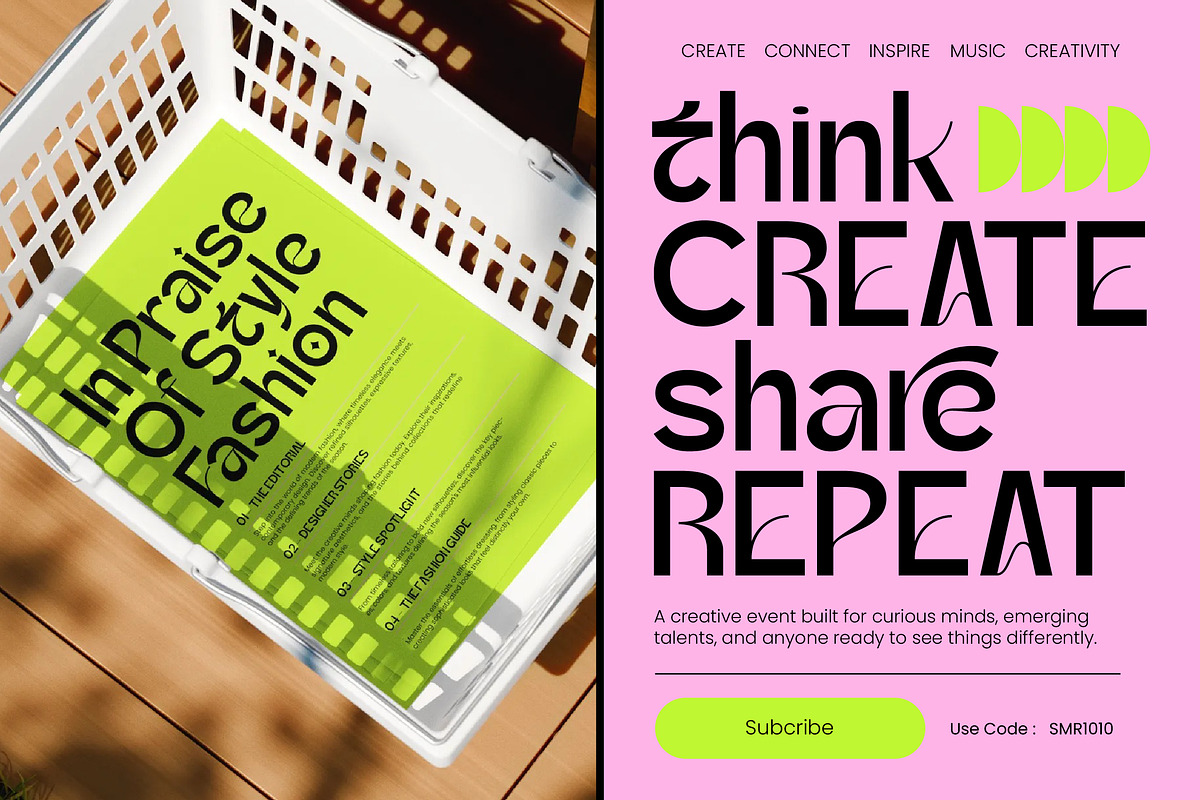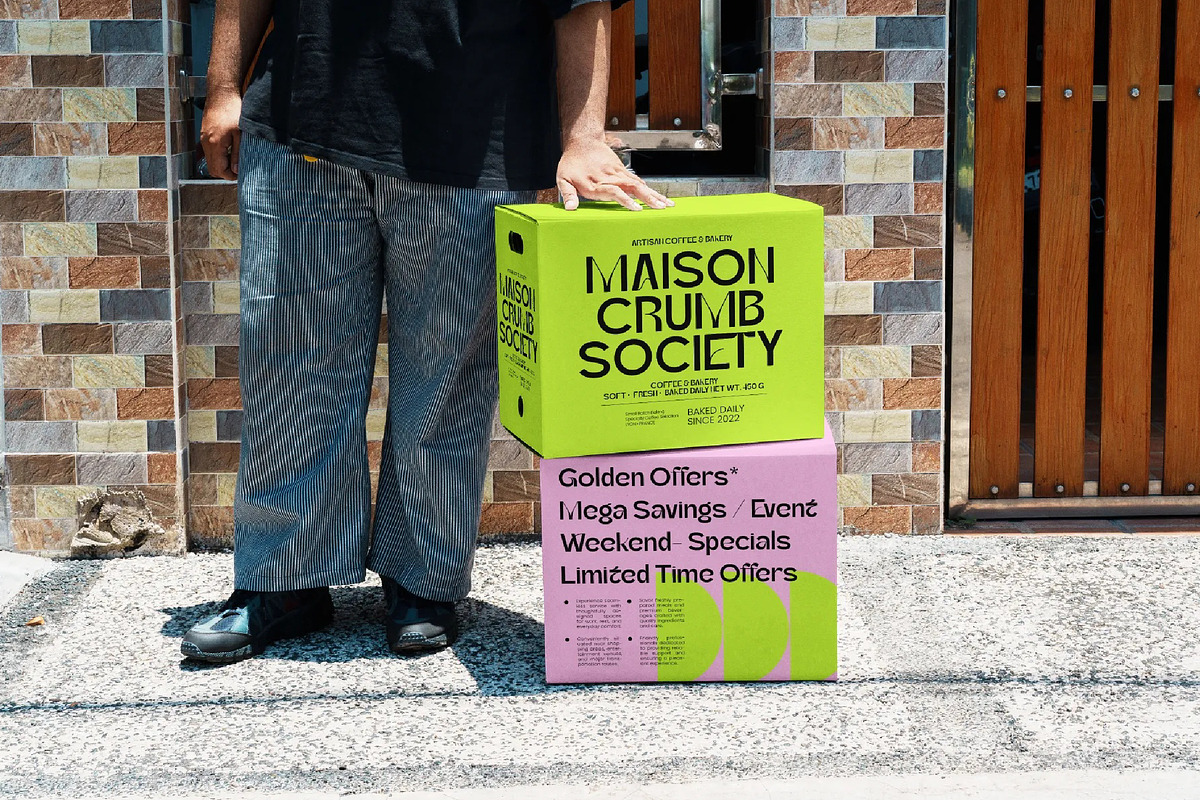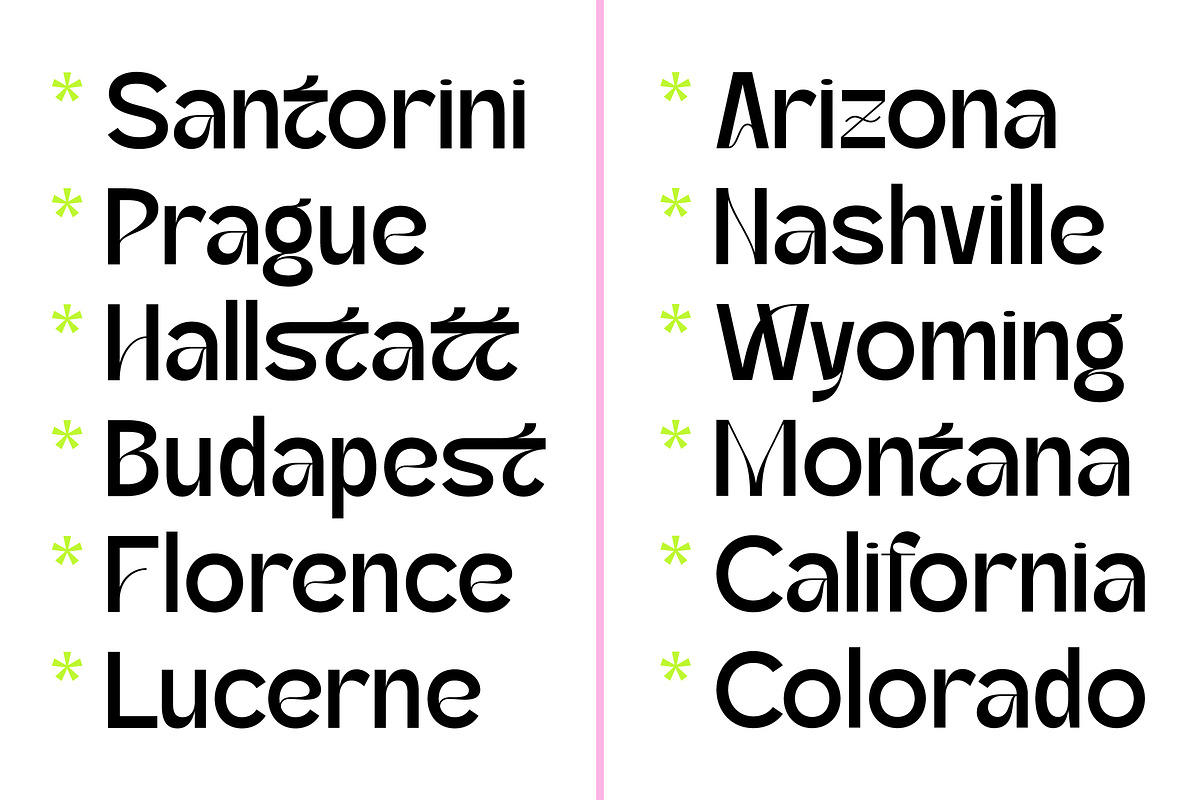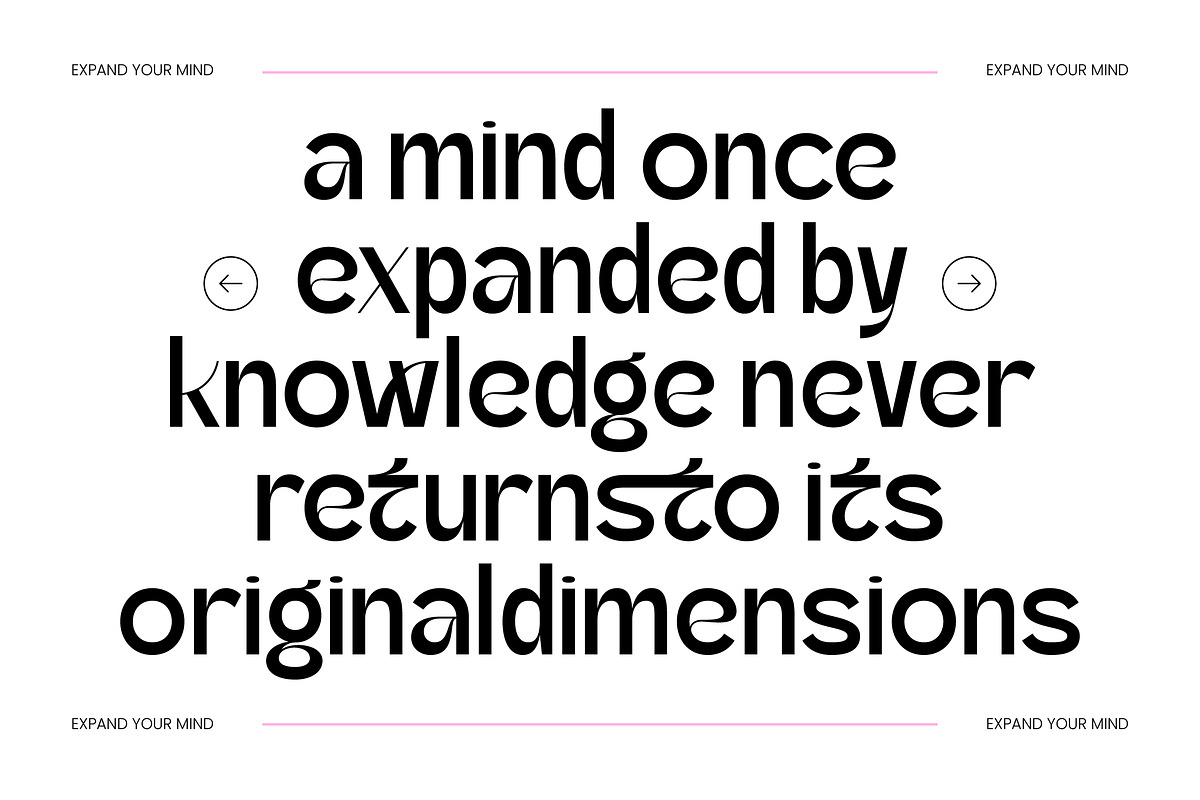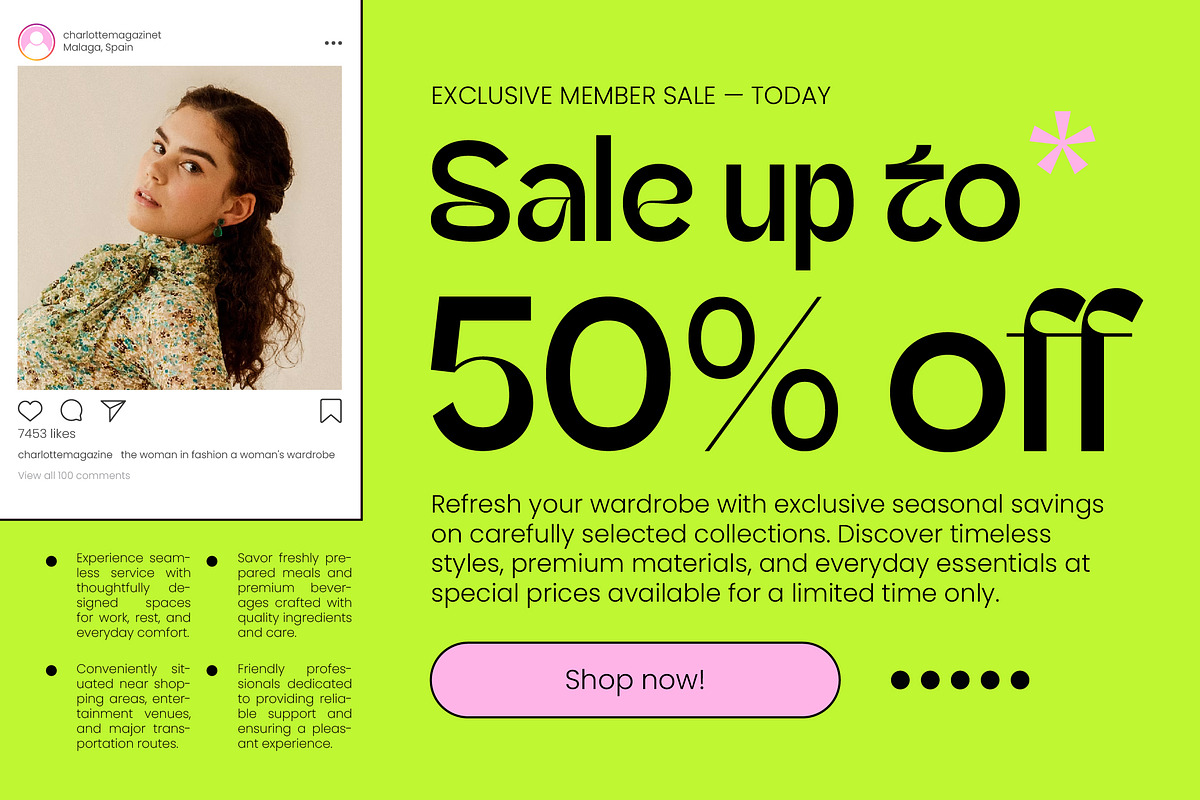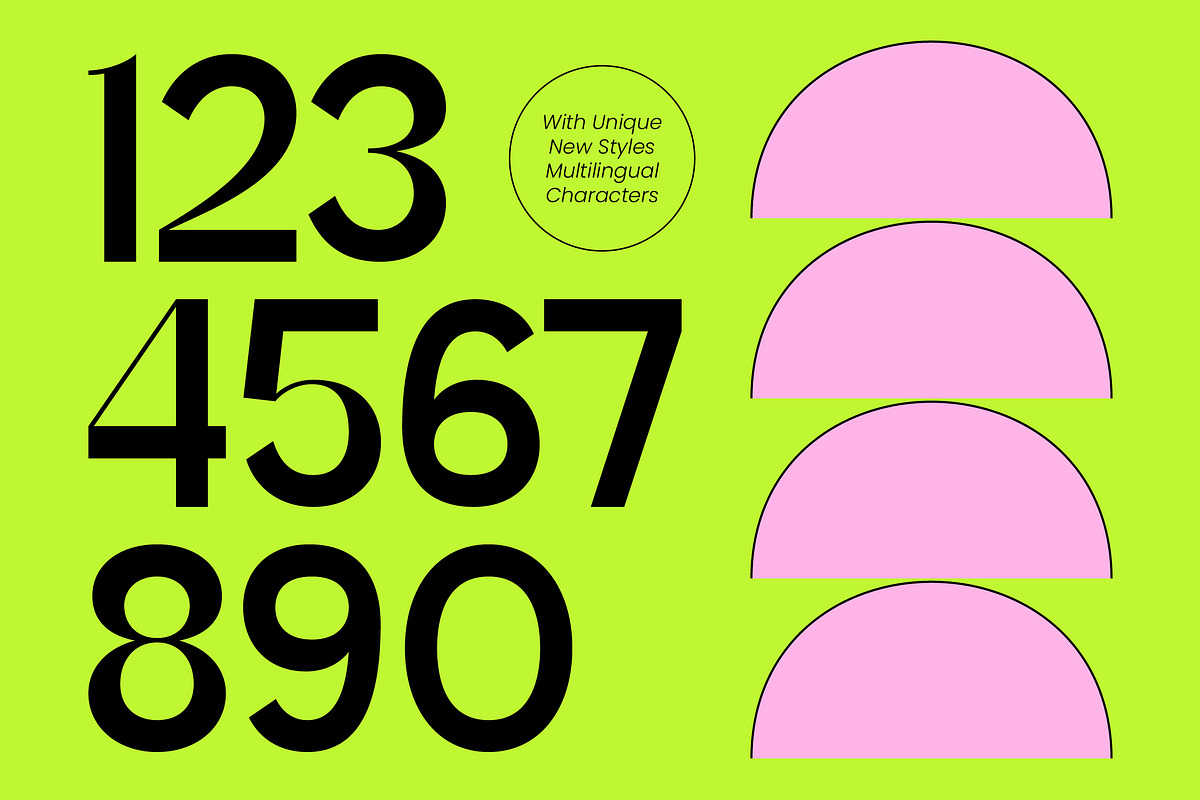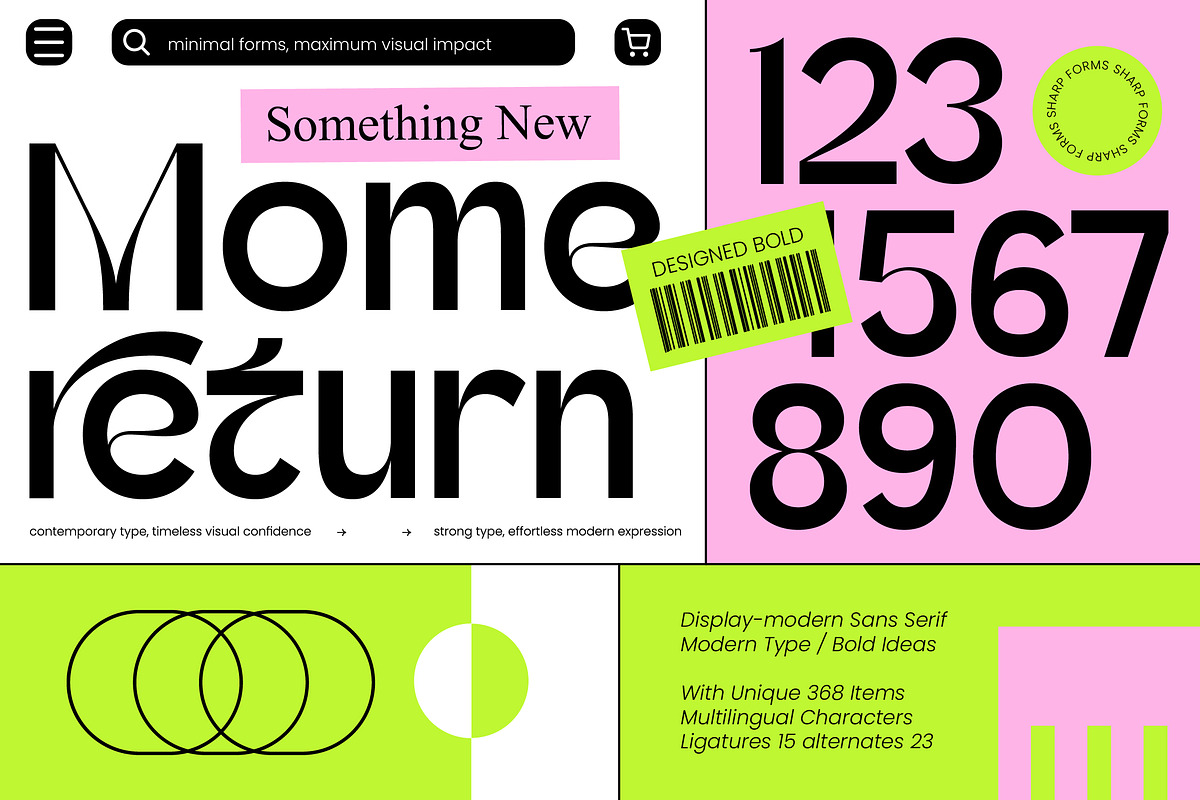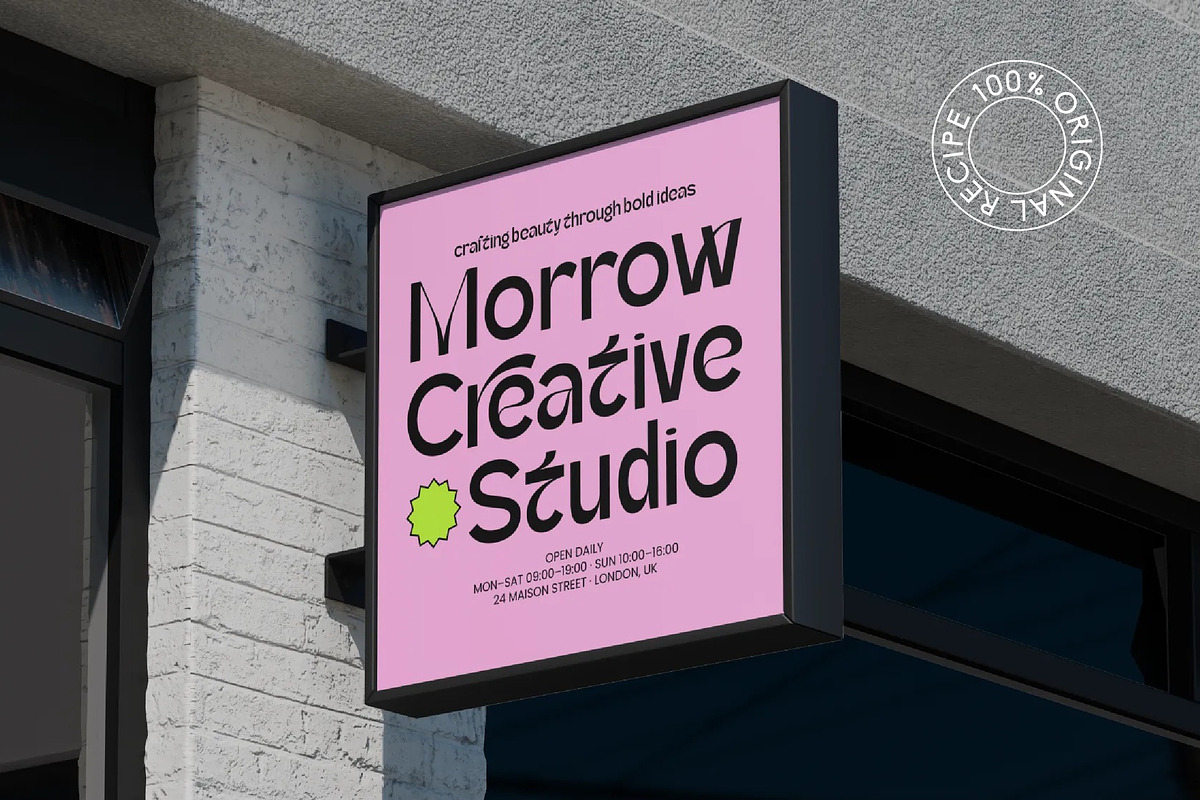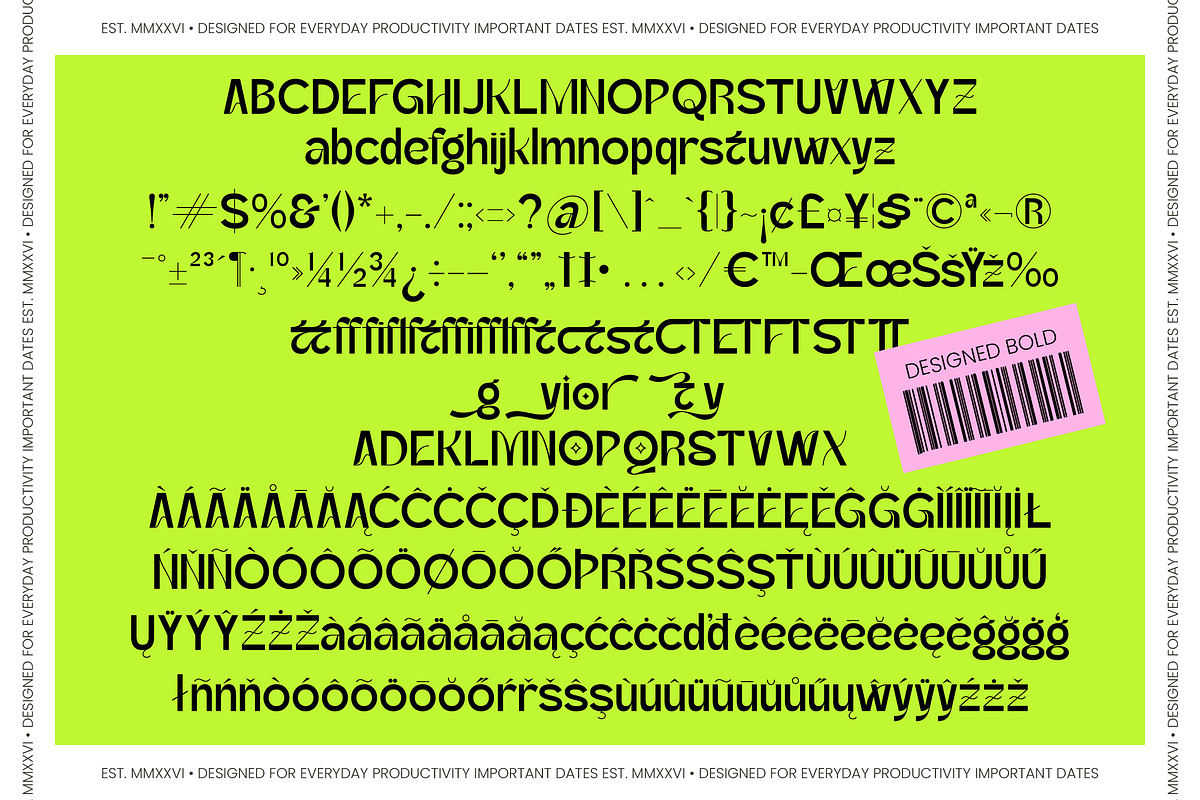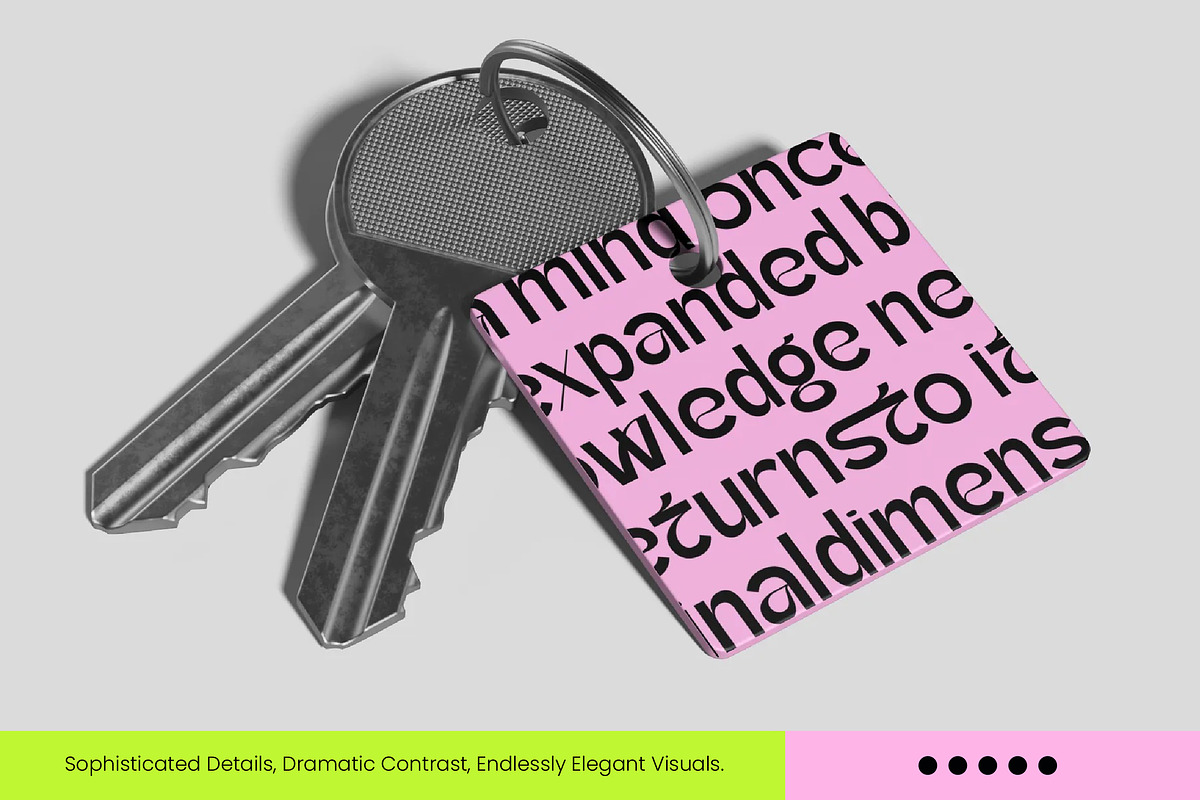
Momereturn Modern Sans Serif
Momereturn – Modern Sans Serif , Elevate your creative vision with a typeface that embodies contemporary sophistication. Momereturn – Modern Sans Serif is a masterclass in high-impact typography, blending minimalist forms with a bold aesthetic. This display-modern sans serif delivers timeless visual confidence, making it an essential tool for designers seeking to make a strong statement. With its sharp forms and sleek curves, it balances effortless modern expression with professional precision.
Discover the ultimate solution for high-end design projects that demand distinction. This typeface is perfect for a wide range of premium applications, including luxury branding, chic packaging, and high-fashion editorial design. Whether used for innovative web headers or striking logos, Momereturn – Modern Sans Serif ensures your brand stands out in a crowded market. Its authoritative weight and modern silhouettes make it an ideal choice for corporate identities and dynamic advertising campaigns.
Expand your creative reach across borders with robust technical capabilities. With its extensive multilingual support, Momereturn – Modern Sans Serif adapts seamlessly across global markets, making it incredibly versatile for international projects. Featuring a comprehensive set of 368 glyphs, including 15 unique ligatures and 23 character alternates, it offers unparalleled flexibility. This allows Momereturn – Modern Sans Serif to maintain its visual integrity while communicating effectively with audiences worldwide.